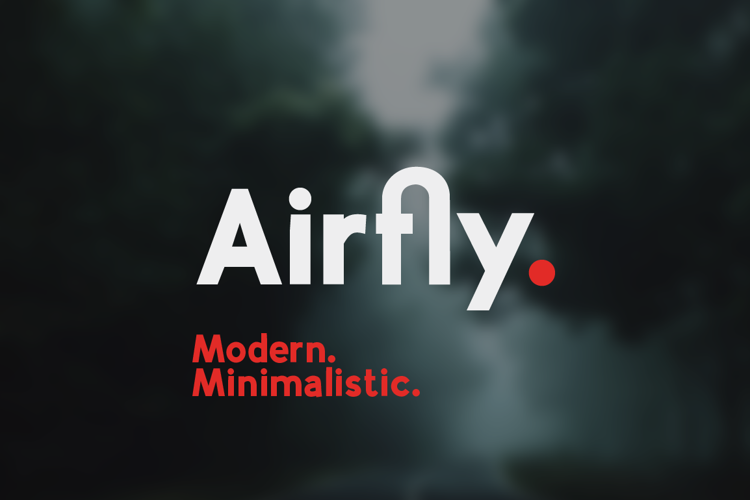
Airfly Font
About Airfly Font
Airfly is perfect for multifunctional headlines or text blocks. It has sharp edges and straight lines and comes in three styles: Thin, Light and Regular, all with an italic version. With its unobtrusive character, it was built to represent a balanced and smooth font face.
The full version includes language support, symbols and all the ligatures and features for a perfect work!